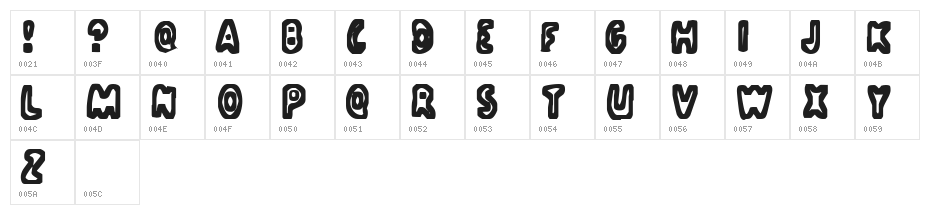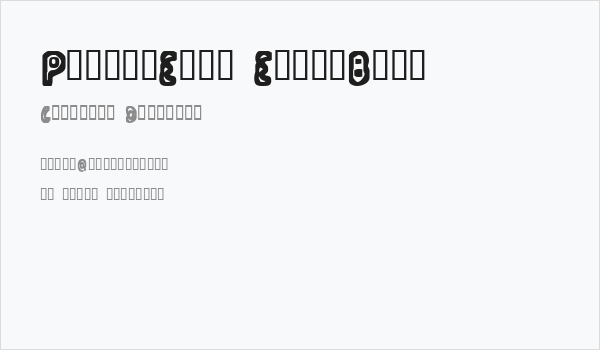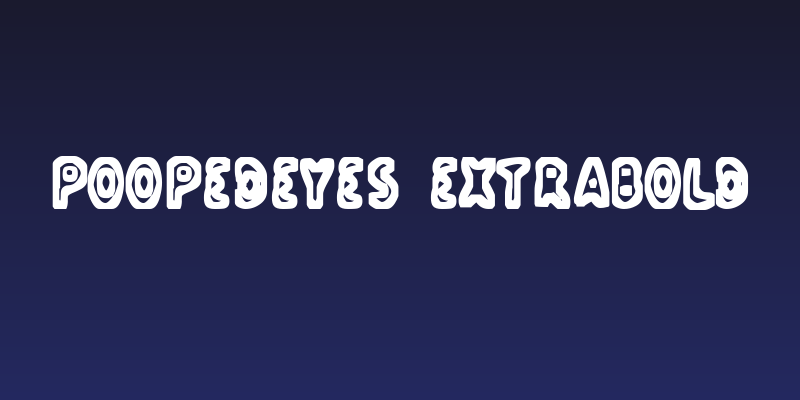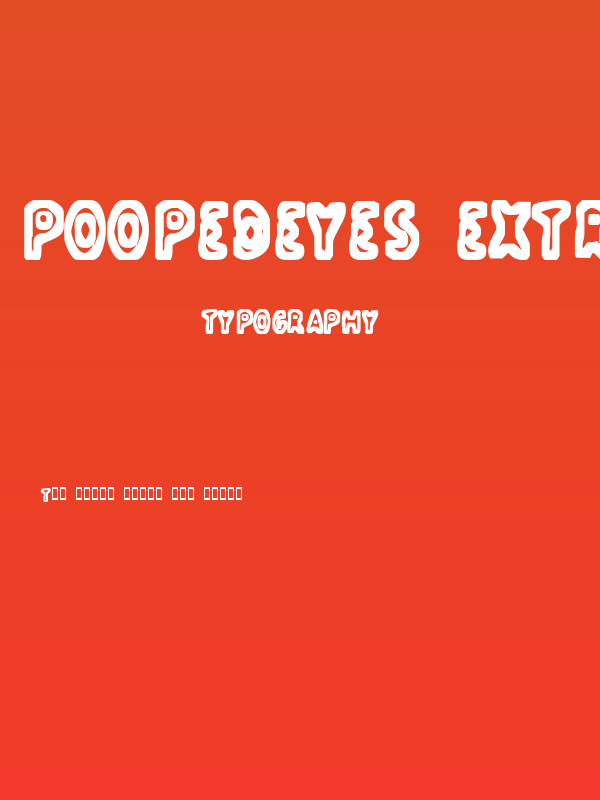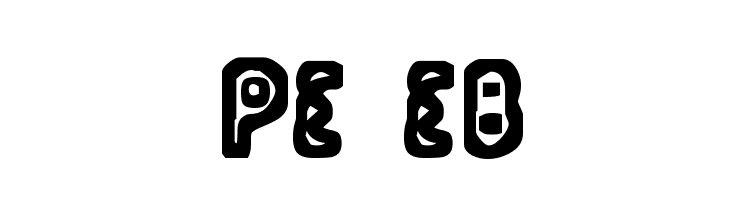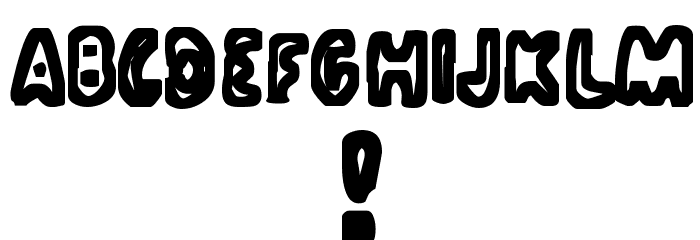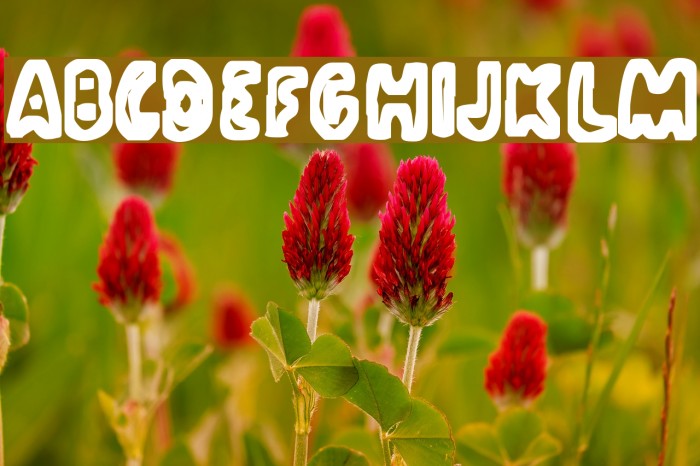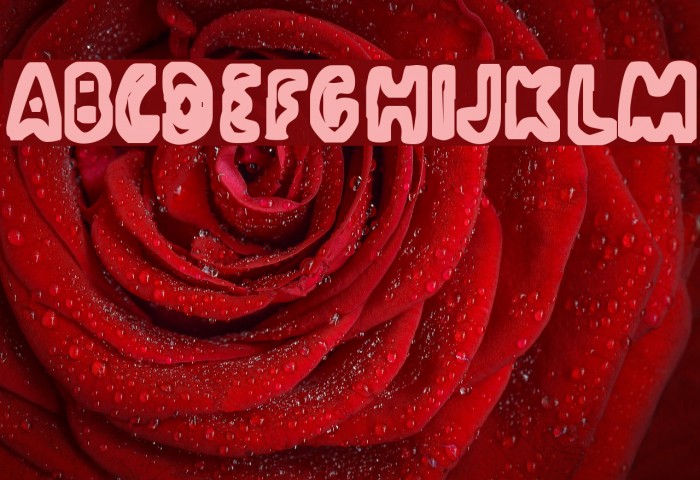
PoopedEyes ExtraBold Font
PoopedEyes ExtraBold Description
This font features a bold, playful style with thick, rounded edges and a slightly irregular shape that gives it a whimsical and energetic appearance. The characters are heavily weighted, creating a strong visual impact, while the rounded forms add a sense of friendliness and approachability. The font's unique design includes exaggerated curves and a bubbly aesthetic, making it stand out in any context. Its boldness ensures high readability, even from a distance, and the playful nature of the characters makes it suitable for creative and informal applications.
| Proposed Projects | Ideal for children's books, playful branding, posters, and creative event invitations. |